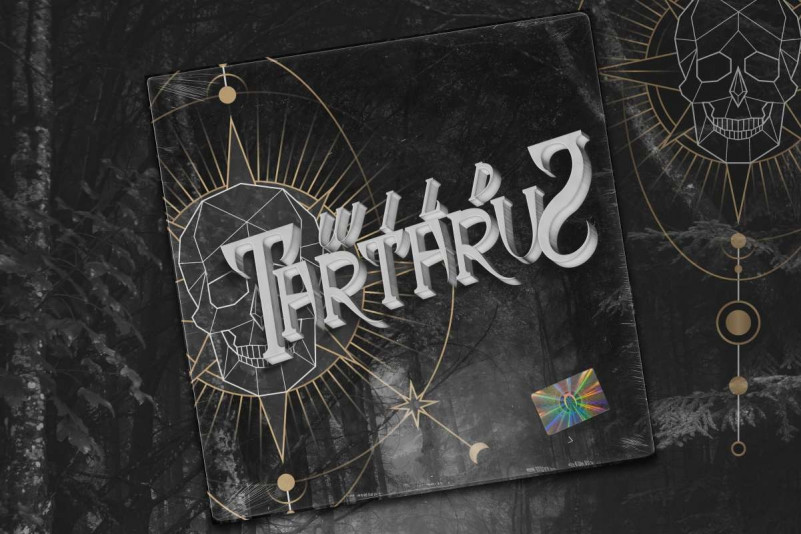
Every Run Display Font
Every Run is a bold yet playful display font, featuring the perfect amount of trendiness. Whether you’re using it for crafting, digital designing, presentations or greeting cards making, it’s perfect!